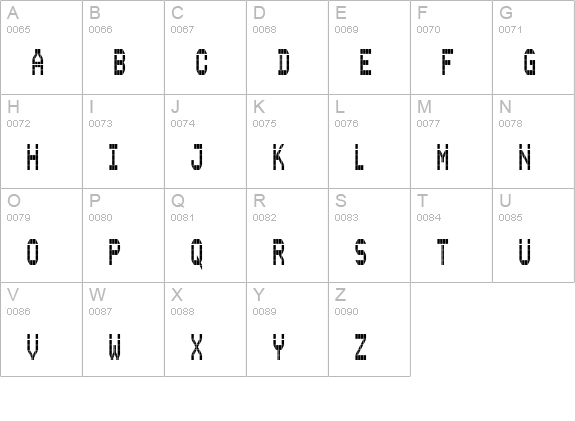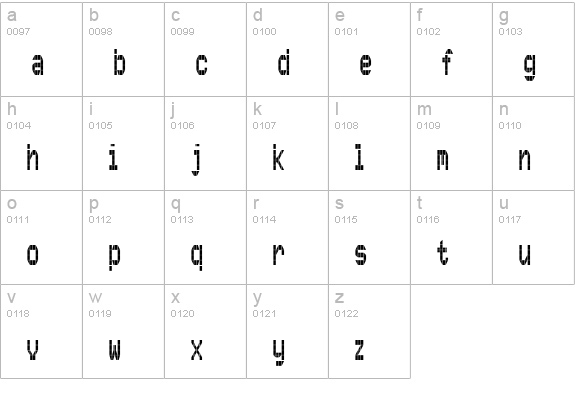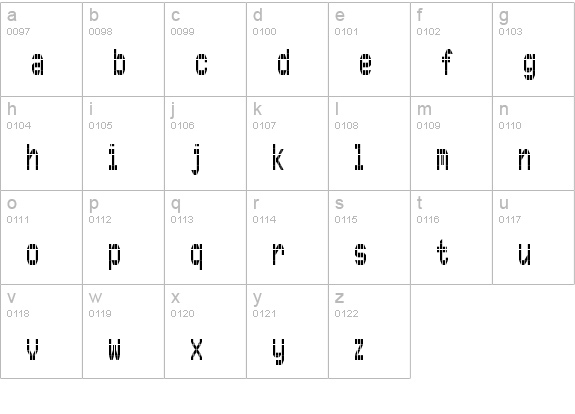
Luggagetag-One Font Details
Luggagetag-One font is a stylish and versatile typeface that exudes a playful and modern vibe. With its unique design inspired by luggage tags, this font is perfect for adding a touch of whimsy to your projects. The letters are bold and easy to read, making it ideal for headlines, branding, and other creative designs. What's even better is that Luggagetag-One font is completely free to download at FontsMarket.com. You can easily access this eye-catching font and incorporate it into your work without any cost. So go ahead and give your projects a fresh and fun look with Luggagetag-One font today!